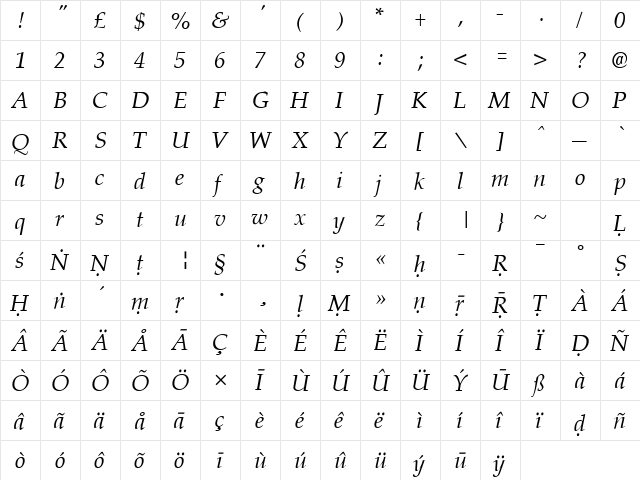
Skt Palermo Italic
Design Context for Skt Palermo Typeface
Skt Palermo offers clean, dependable letterforms without strong stylistic allegiance, making it a practical choice for designers who need flexibility. The slanted form adds forward momentum and visual energy.
Pro Tip: Use Skt Palermo for emphasis, pull quotes, and subheadings where its slanted energy can add rhythm to the layout.